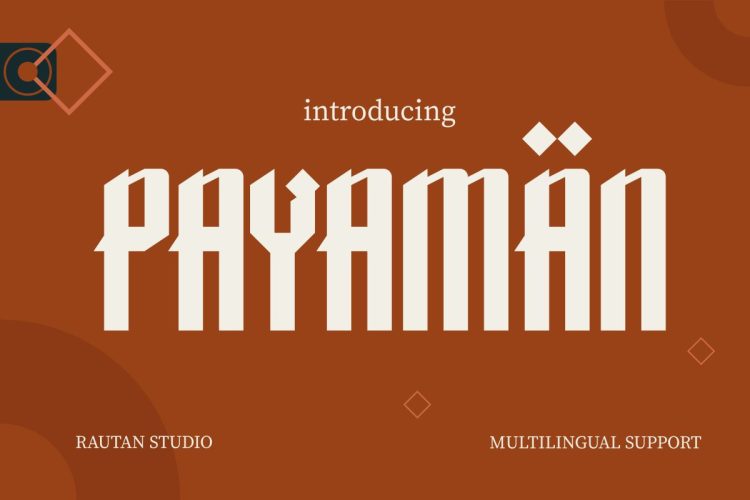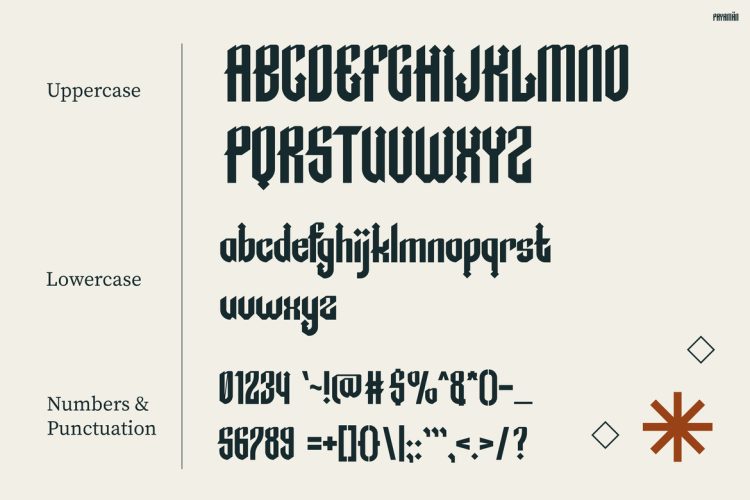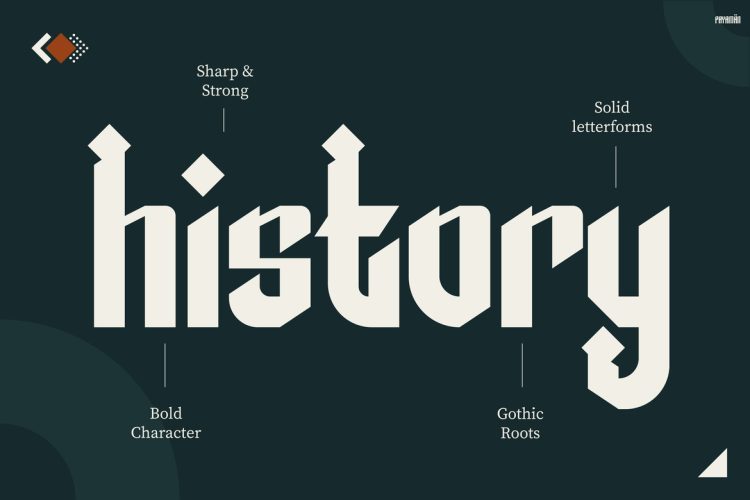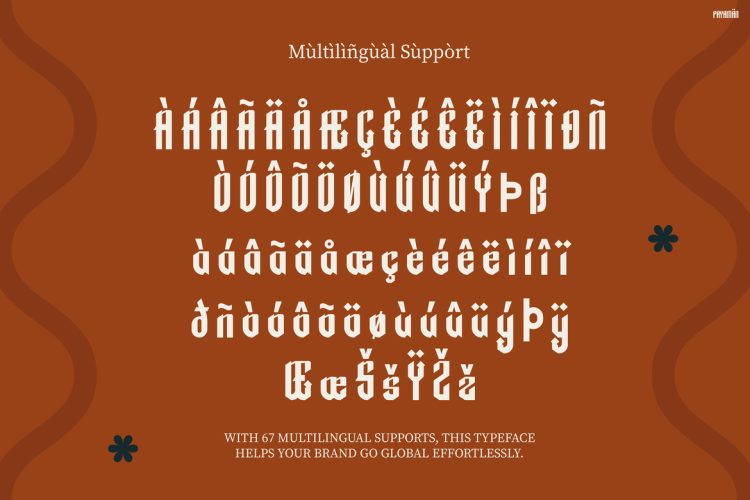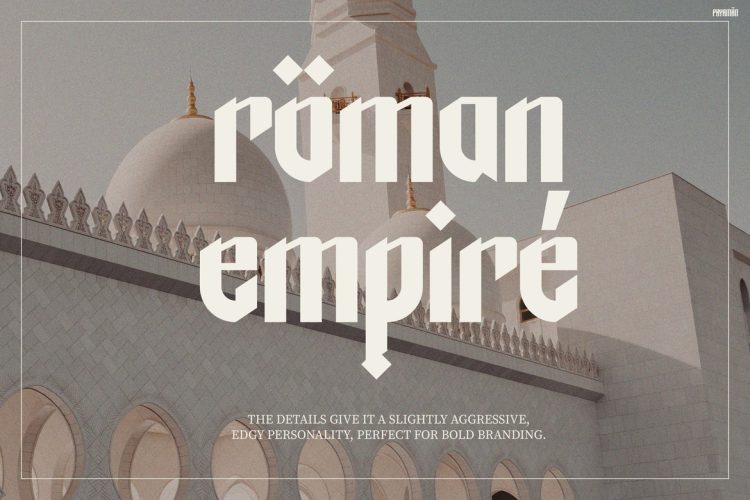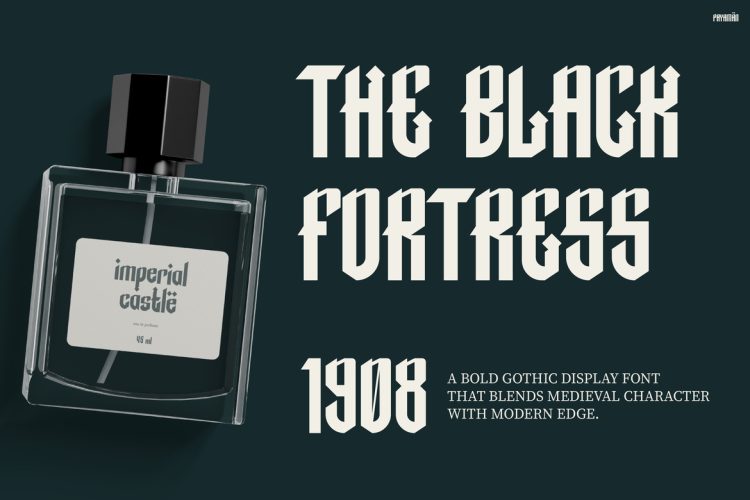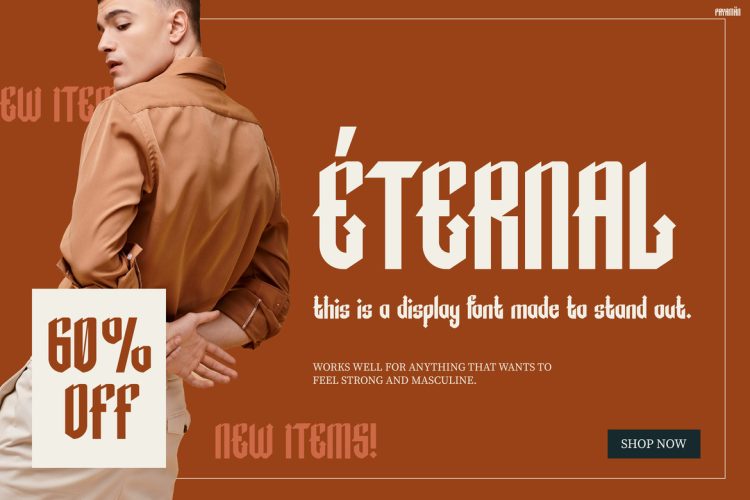
Instagram Font Payaman โ Medieval Power with Modern Edge
Instagram Font Payaman delivers a bold blackletter-inspired display style that blends medieval authority with contemporary structure. This font stands out through its sharp vertical strokes, dramatic angles, and strong Gothic influence that immediately create a powerful visual presence. At the same time, Payaman refines traditional blackletter forms into a cleaner and more structured composition, making it easier to read and more adaptable for modern design needs. The letterforms feel historic yet intentional, decorative yet controlled. Because of this balance, Payaman communicates strength, heritage, and underground energy without looking outdated or overly complex.
Payaman features carefully crafted uppercase and lowercase characters, along with numbers and punctuation that maintain stylistic consistency. Its rhythm feels solid and confident, allowing headlines to dominate layouts with authority. Furthermore, the font supports 67 languages, which enables global creators and brands to maintain a unified visual identity across different markets. Whether used for social media graphics, album covers, streetwear branding, posters, or editorial headlines, Payaman holds its character and clarity across both digital and print formats.
Strong Character with Underground Appeal
Instagram Font Payaman thrives in bold visual environments where personality matters. Its medieval-inspired structure adds cultural depth and emotional intensity to designs. Moreover, its modern refinement ensures versatility across different creative themes. Designers can use Payaman to build dramatic headlines, distinctive logos, and expressive typography systems that demand attention. Because the strokes are structured and balanced, the font remains readable while preserving its iconic blackletter style. Therefore, it works exceptionally well for fashion campaigns, music promotions, gothic aesthetics, historical themes, and edgy branding concepts.
Instagram Font Payaman Perfect for Who?
Instagram Font Payaman suits streetwear brands, music artists, album designers, tattoo studios, barbershops, gaming communities, and underground fashion labels. Additionally, graphic designers and creative agencies can use it for posters, merchandise, social media content, packaging, and event branding. Influencers who focus on alternative, vintage, or gothic themes will appreciate its dramatic presence. Entrepreneurs seeking a strong, heritage-inspired visual identity will also find Payaman highly effective.
Make a Bold Statement
Instagram Font Payaman transforms simple words into commanding visual statements filled with heritage and power. If you want a typeface that combines medieval influence with modern clarityโand supports global communicationโPayaman is the perfect addition to your collection. Elevate your branding, energize your visuals, and let your typography speak with fearless confidence.